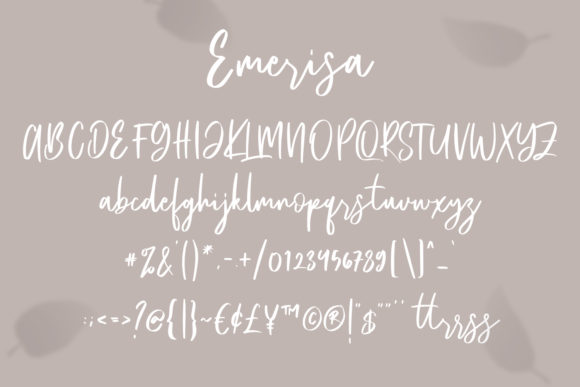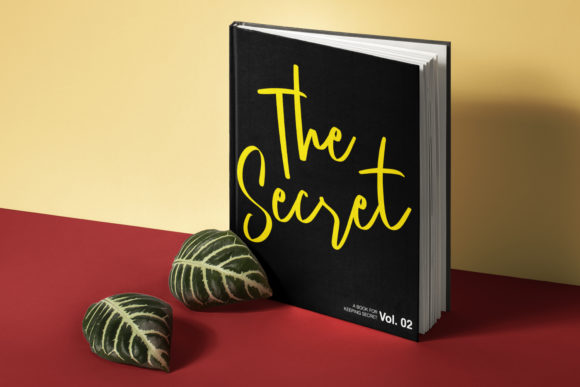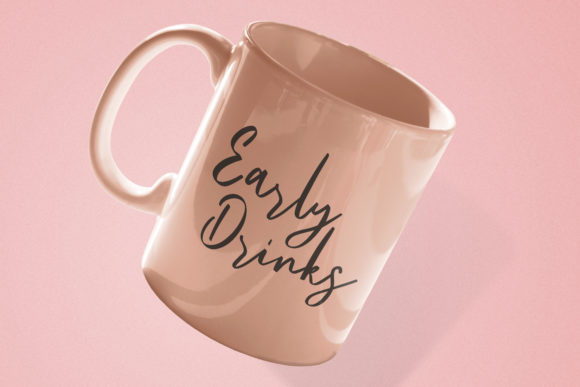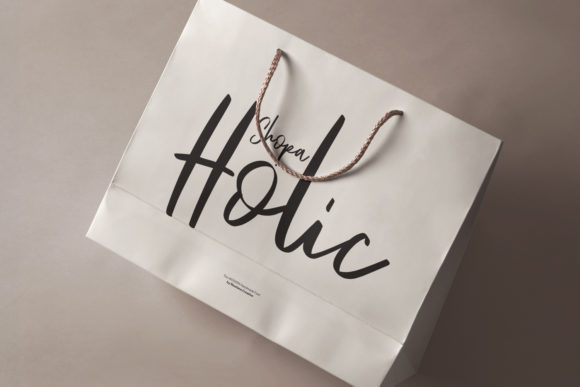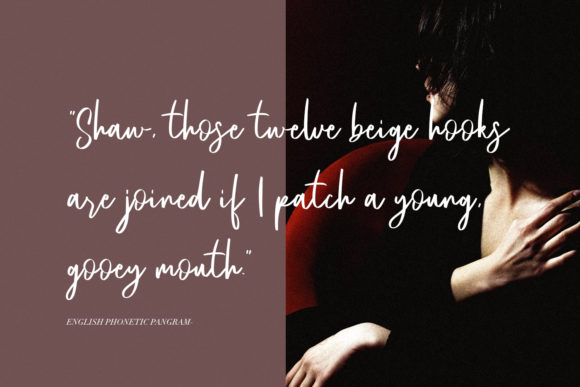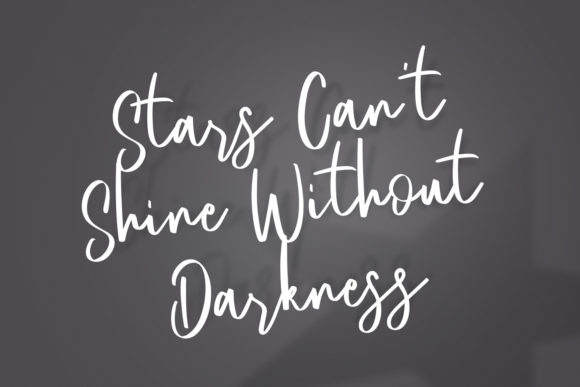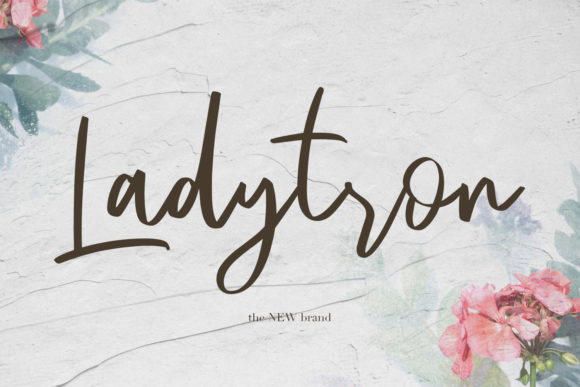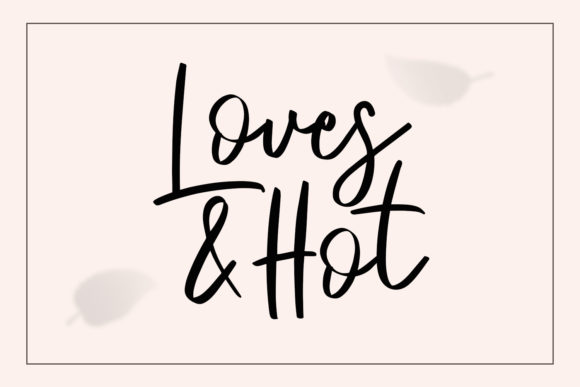
Emerisa Font
About Emerisa Font
Emerisa is a handwritten script font that can give your designs an authentic handcrafted feel. It is perfectly suited for a variety of creative projects!